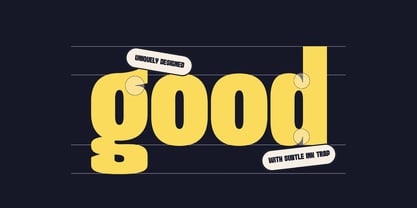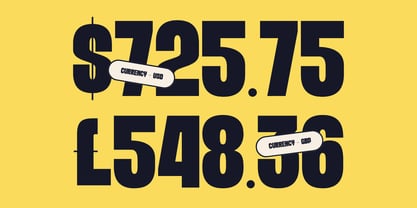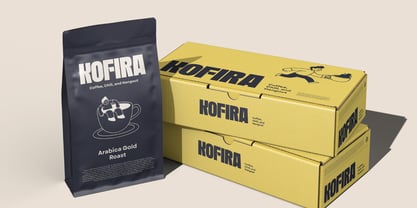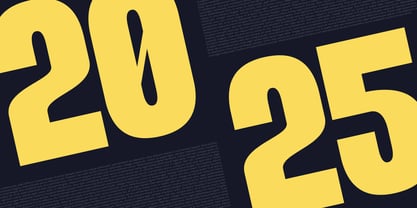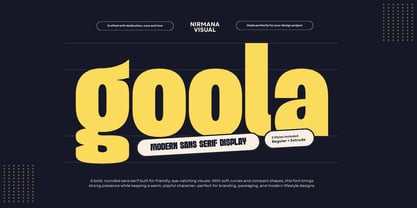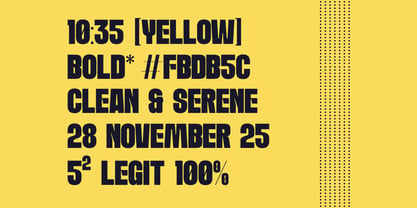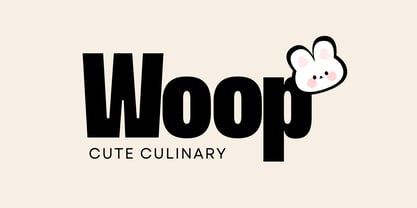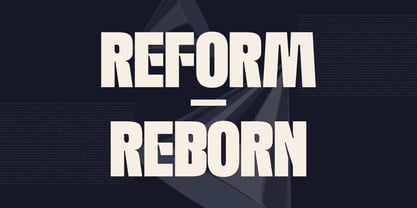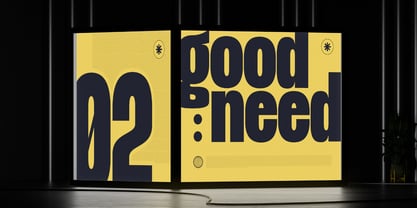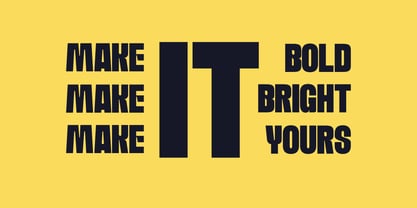
Goola Modern
von Nirmana Visual
Die Schriftfamilie Goola Modern wurde von Sigit Dwipa entworfen und von Nirmana Visual veröffentlicht. Goola Modern enthält 2 Stile und Familienpaketoptionen. Mehr über diese Familie
Goola Modern is a bold sans-serif font crafted for strong visual impact. Available in Regular and Extrude, it delivers a clean, modern style perfect for headings, titles, logos, labels, packaging, and versatile branding needs. Its powerful shapes and smooth geometry make every design stand out with confidence, clarity, and a contemporary aesthetic suitable for both digital and print use.